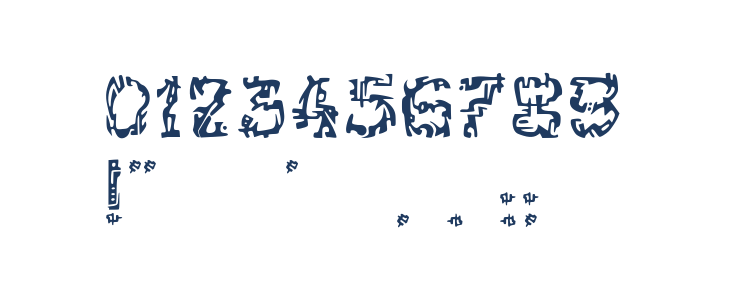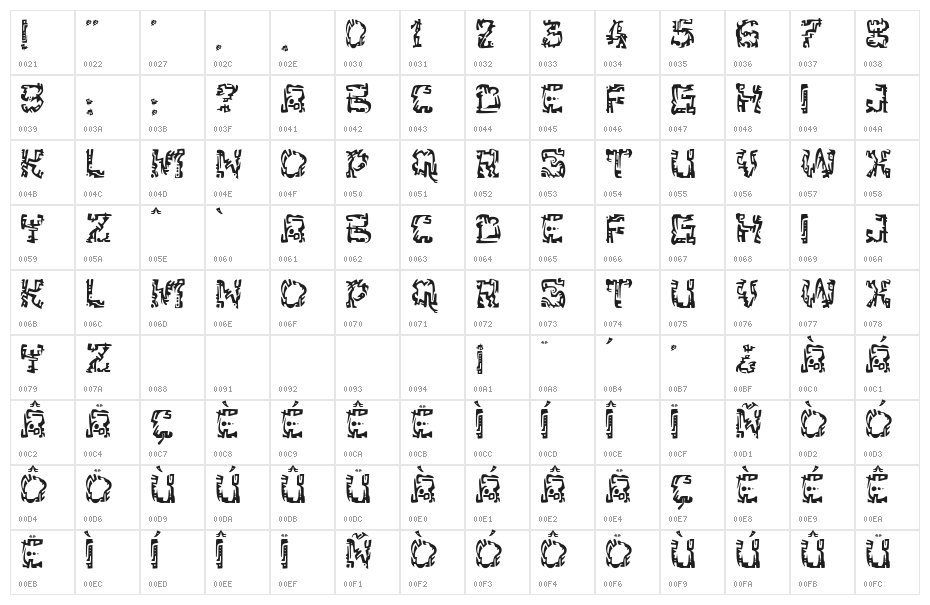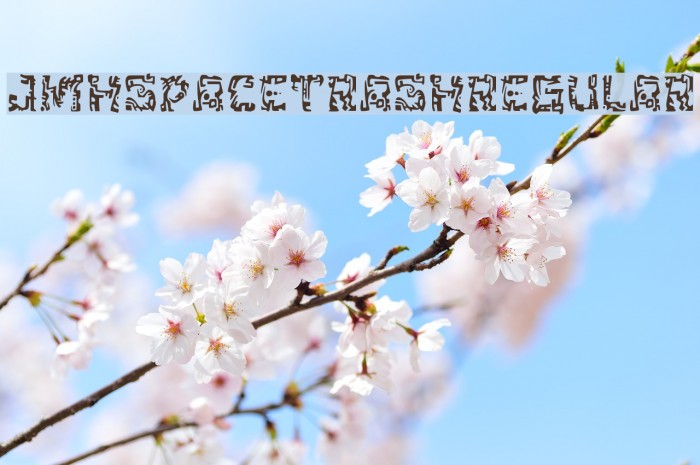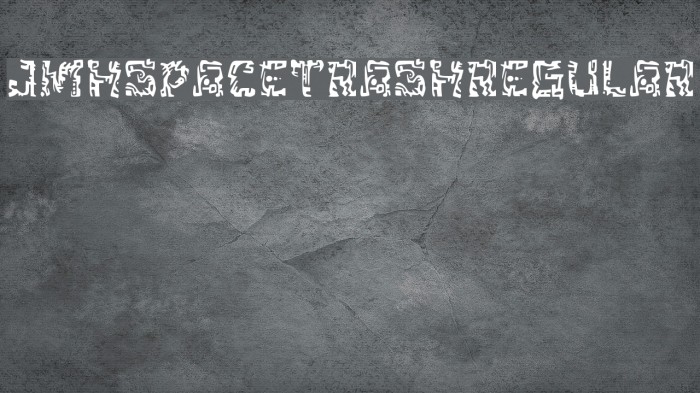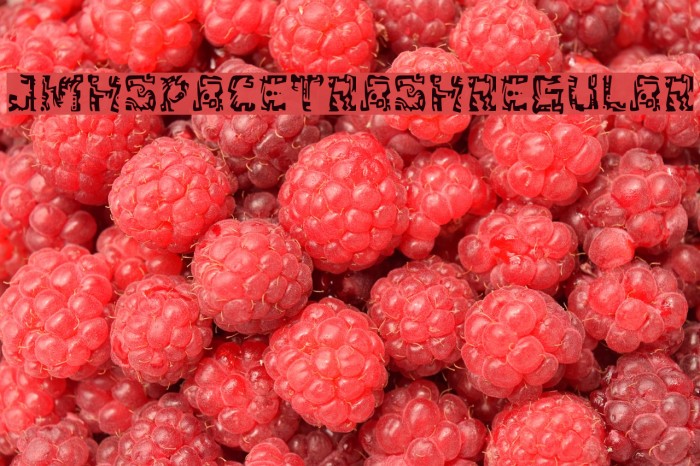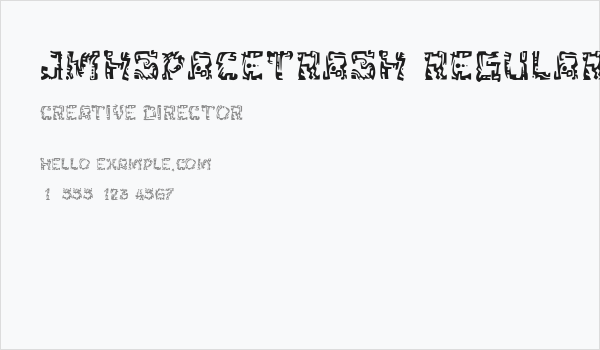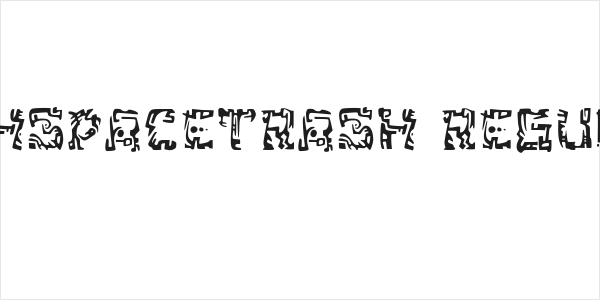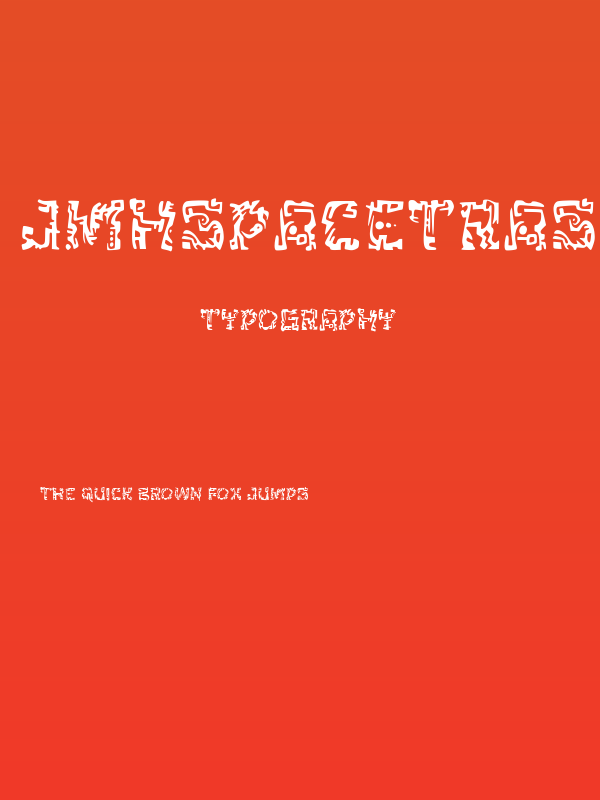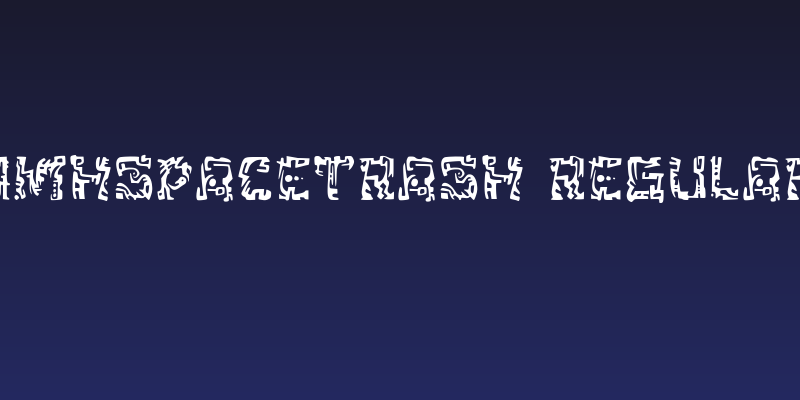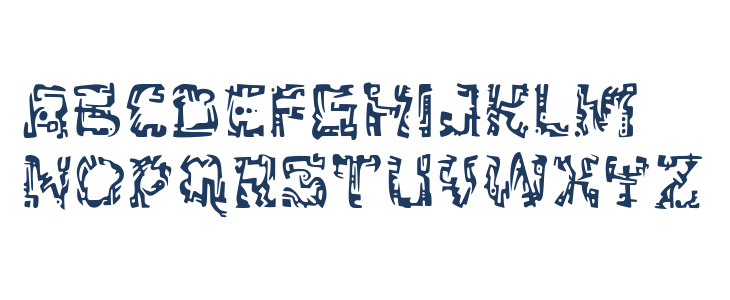
JMHSpaceTrash-Regular Font
JMHSpaceTrash-Regular Description
This font features a highly decorative and abstract design, reminiscent of space-themed or futuristic aesthetics. Each character is composed of fragmented, irregular shapes that create a sense of chaos and movement. The letters are bold and have a substantial presence, with intricate details that suggest a mechanical or industrial influence. The overall appearance is striking and unconventional, making it ideal for projects that require a unique and eye-catching typeface. The font's playful yet edgy style is perfect for creative and artistic applications.
| Overall Style | Futuristic, Decorative |
| Proposed Projects | Ideal for sci-fi movie posters, video game titles, album covers, and creative branding. |